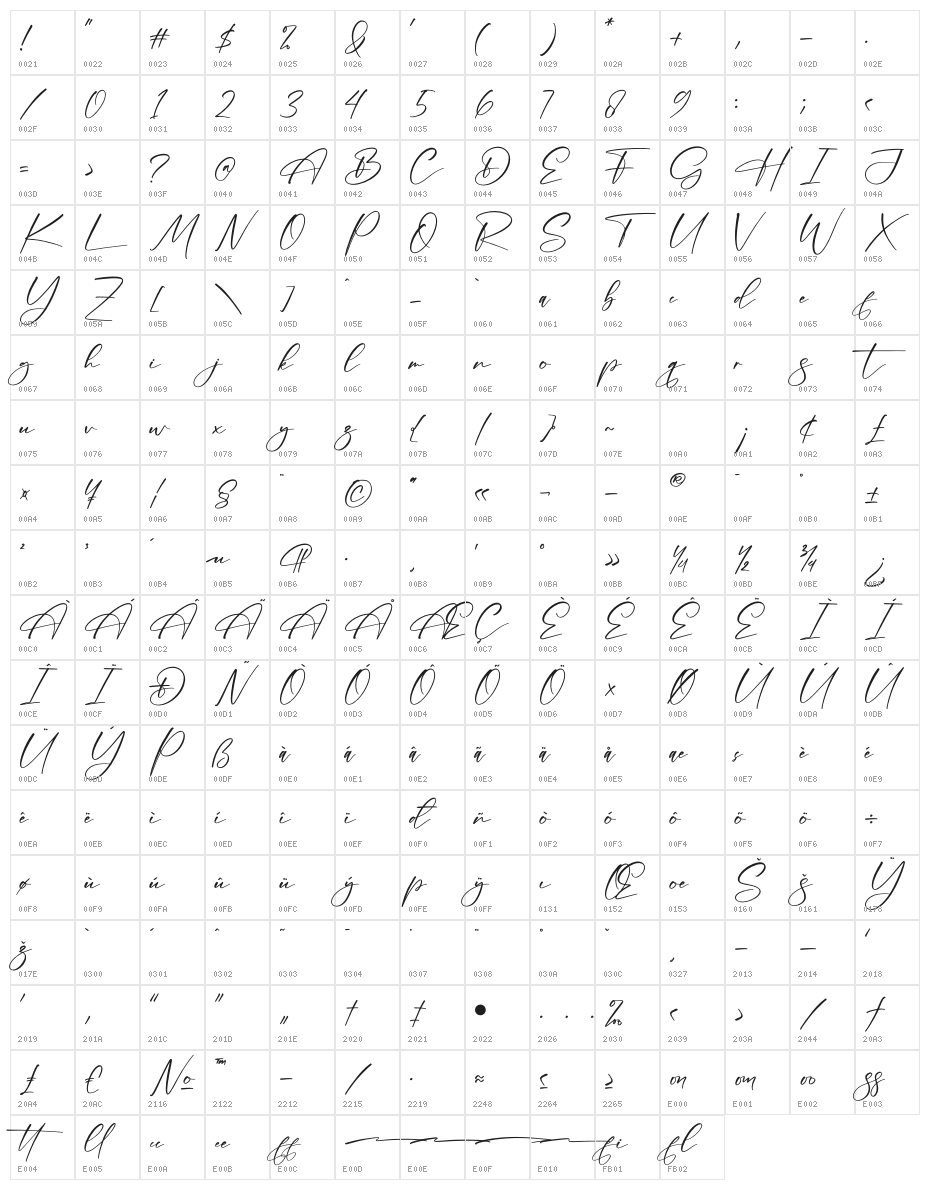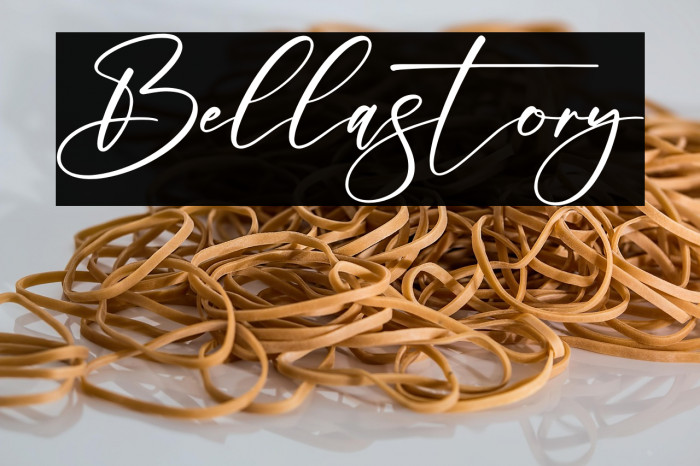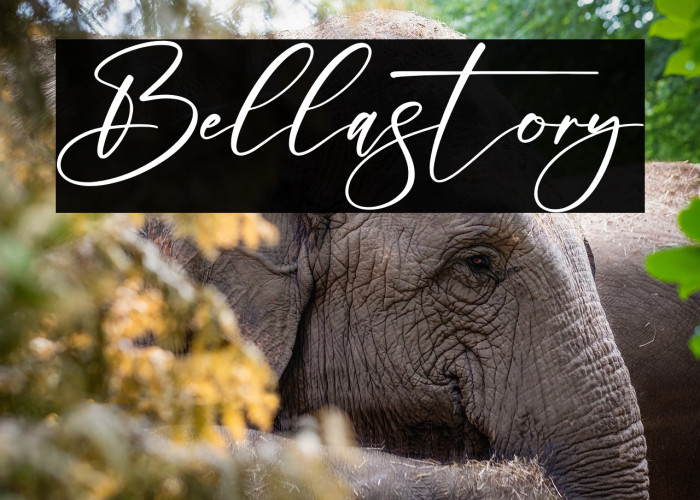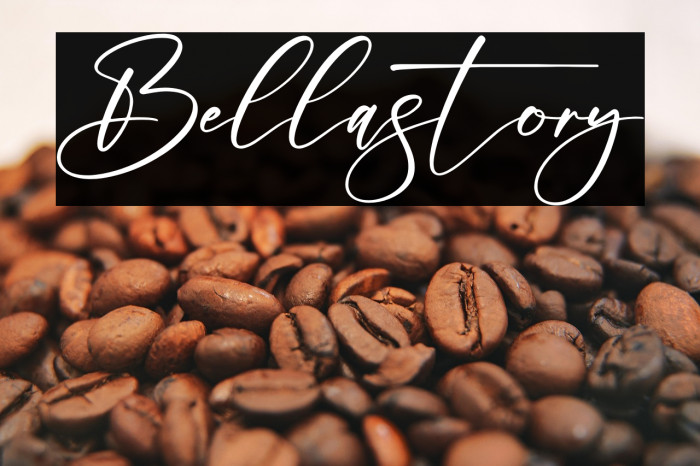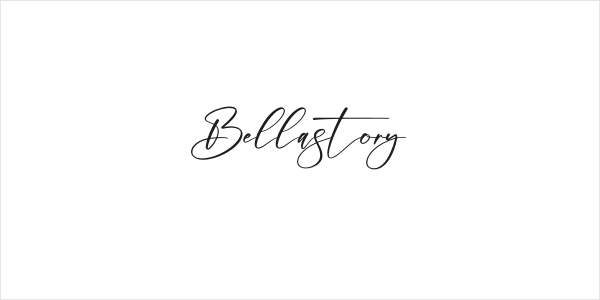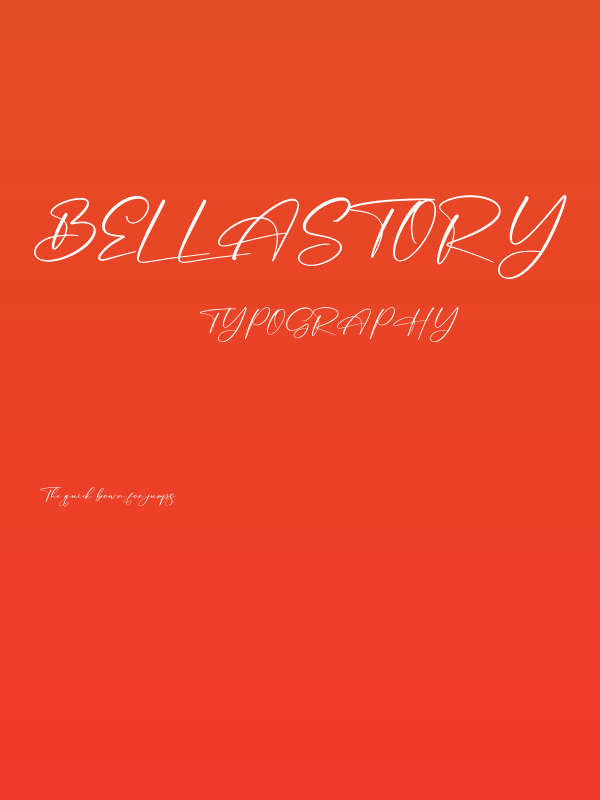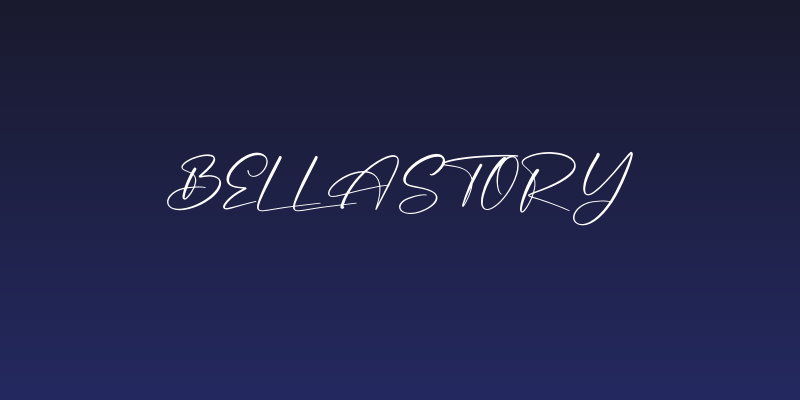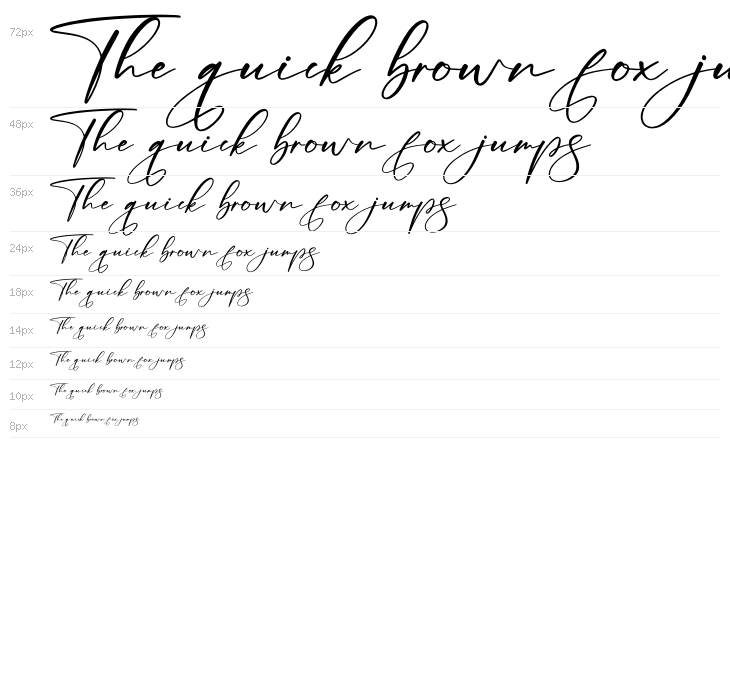
Bellastory Font
Bellastory Description
This font exudes elegance and sophistication with its flowing, cursive script style. The letters are interconnected, creating a seamless and fluid appearance that mimics natural handwriting. The uppercase letters are slightly more structured, while the lowercase letters exhibit graceful loops and curves. The numbers and special characters maintain the same fluidity, ensuring consistency throughout. The strokes vary in thickness, adding a dynamic and lively feel to the text. This font is perfect for projects that require a personal touch, such as invitations, greeting cards, and branding materials.
| Overall Style | Elegant, Sophisticated |
| Use Case | Invitations, Greeting Cards, Branding |
| Proposed Projects | Ideal for wedding invitations, greeting cards, personal branding, and elegant logos. |